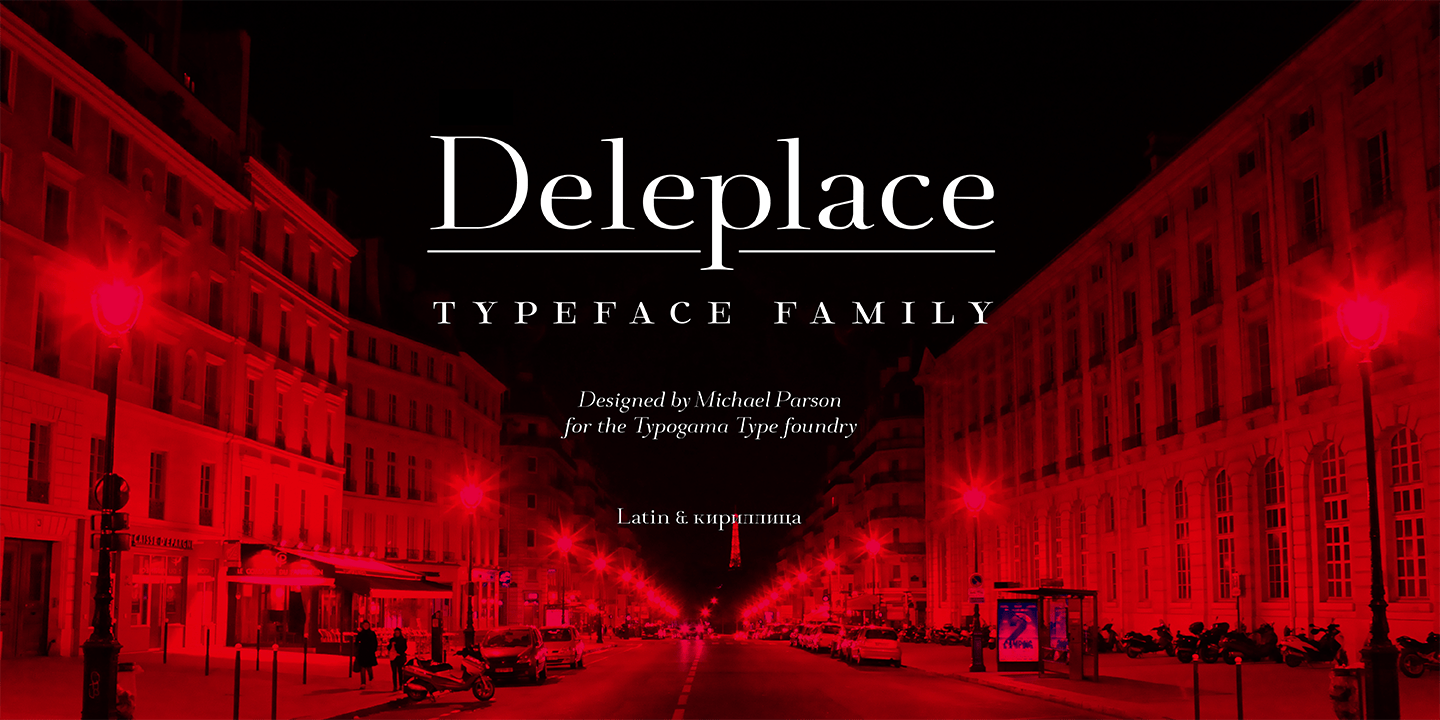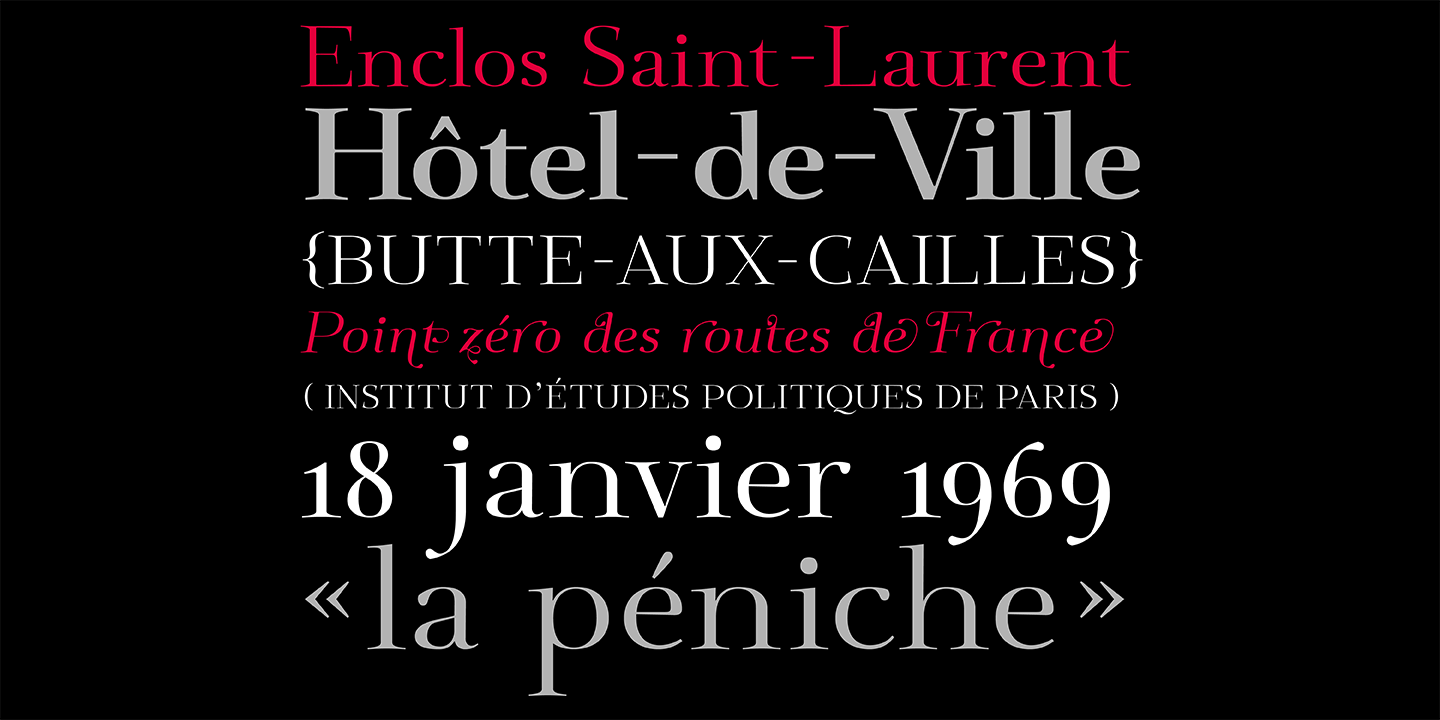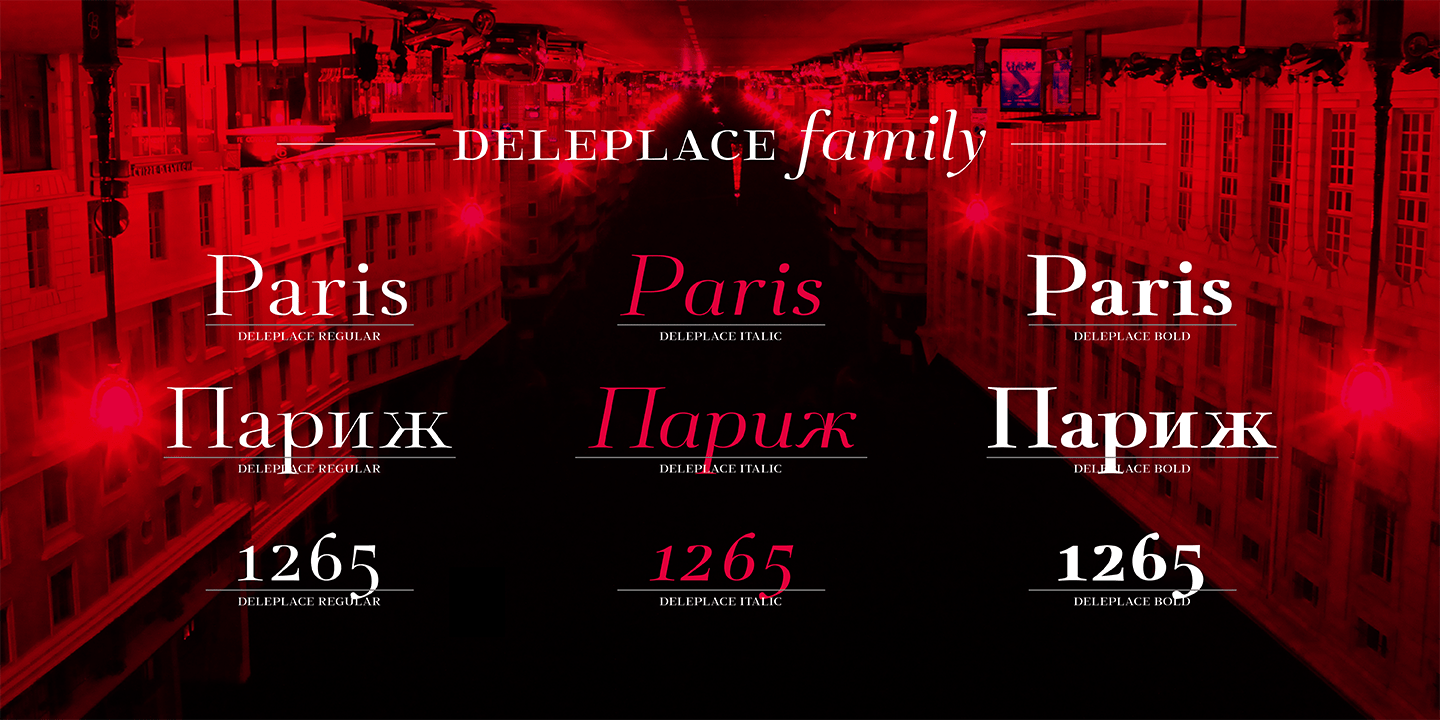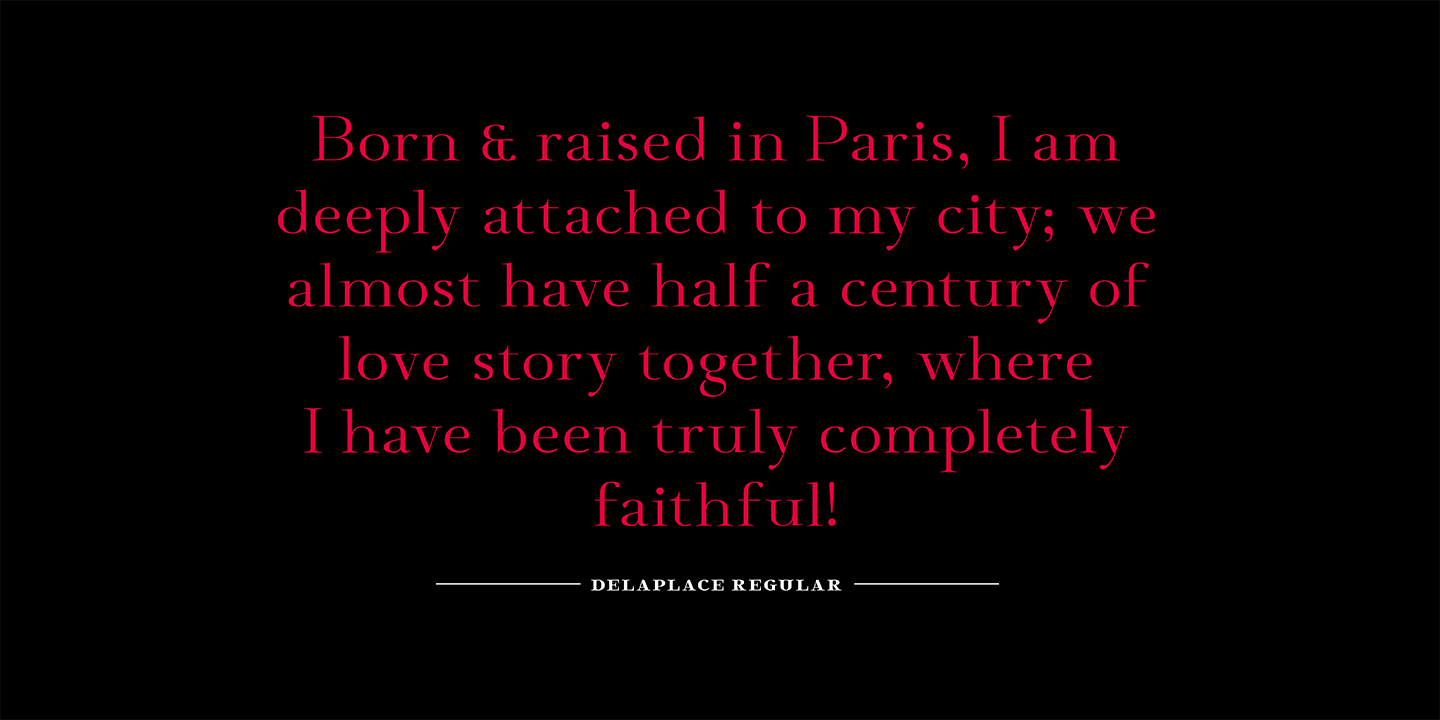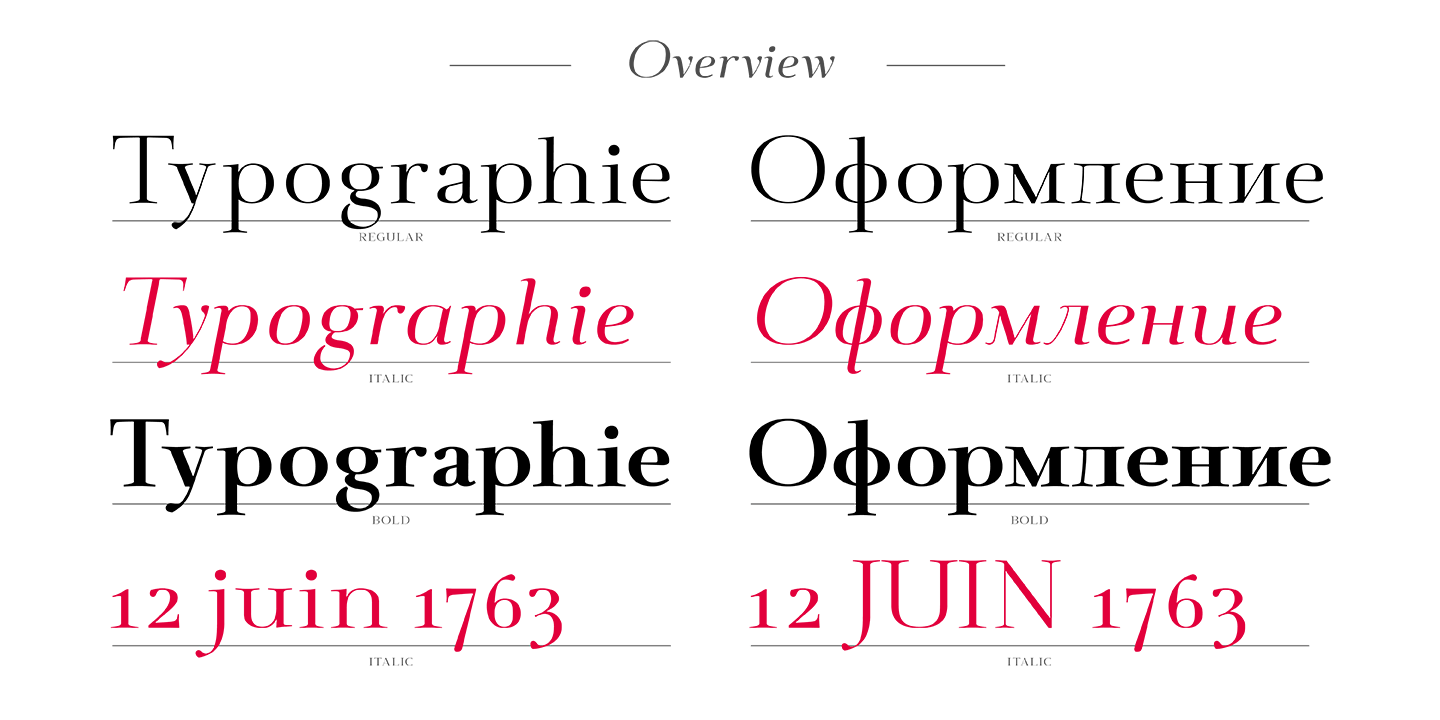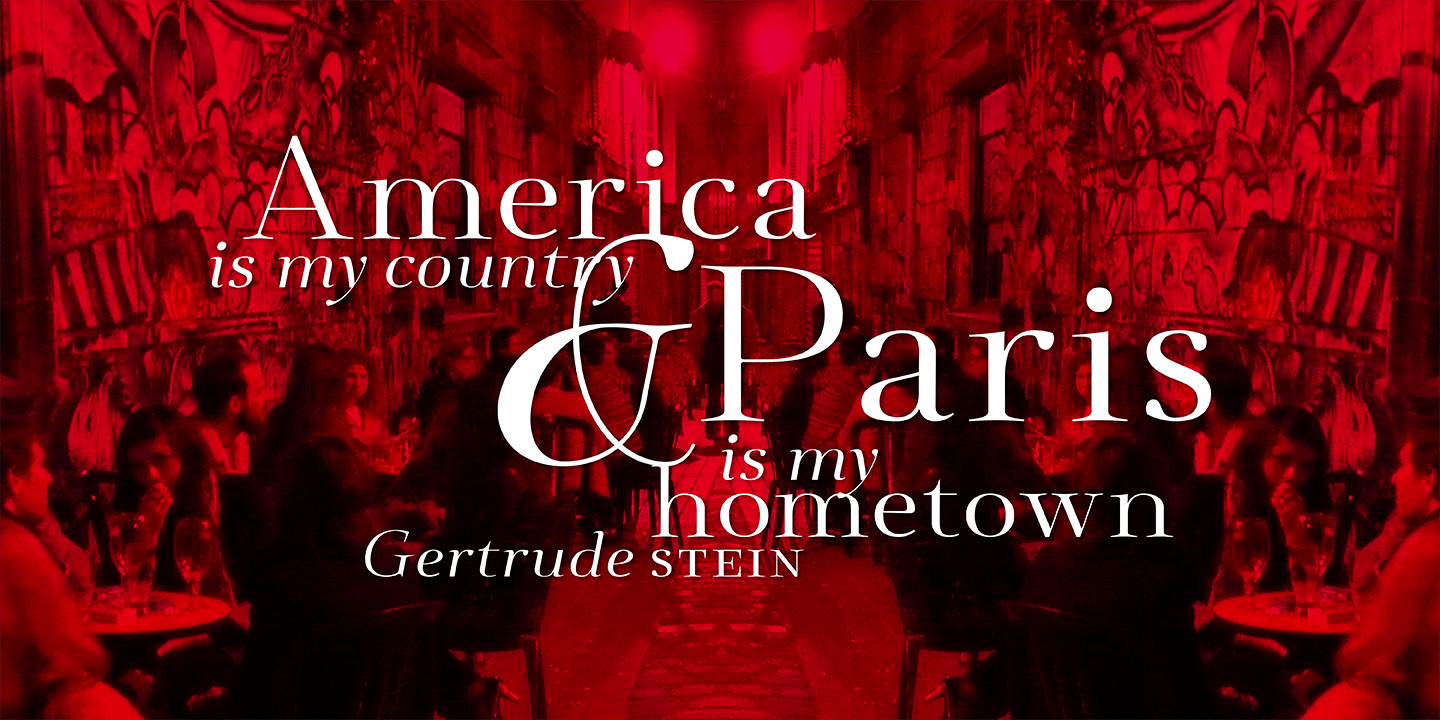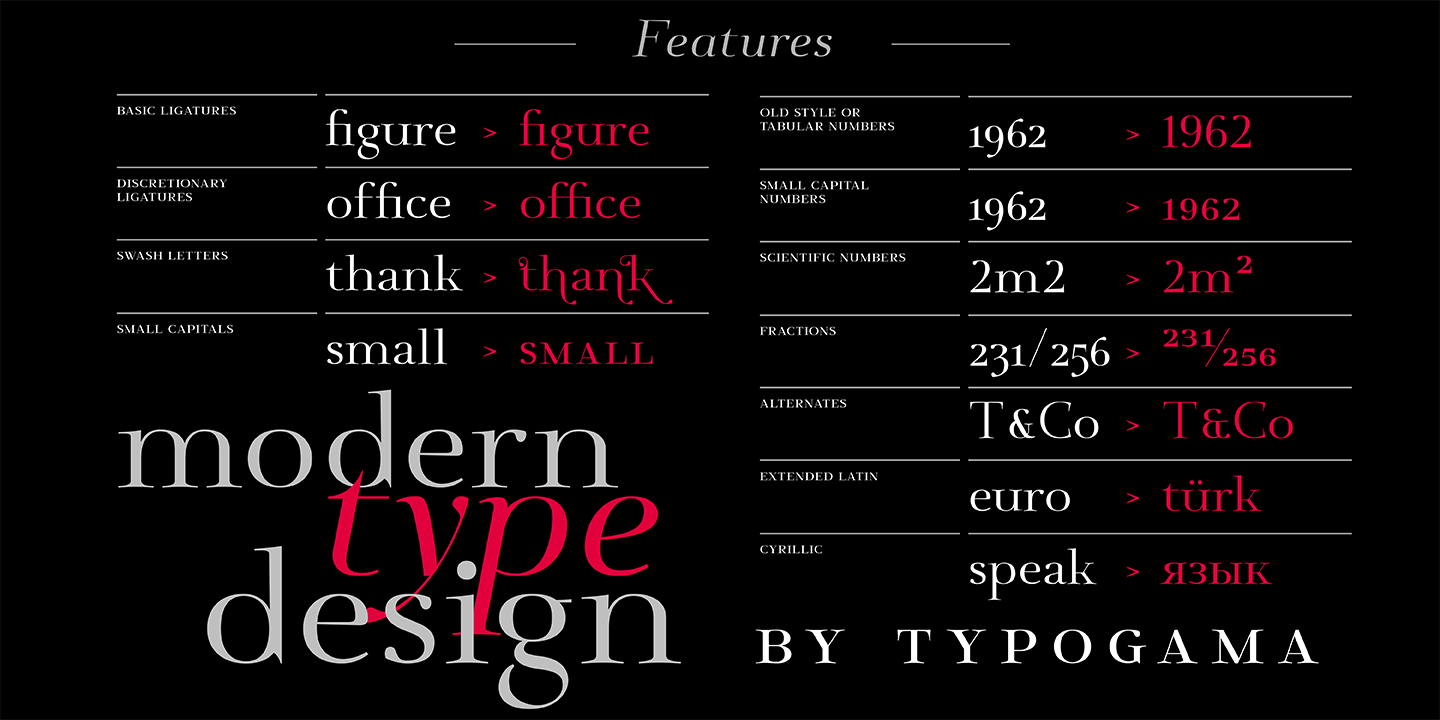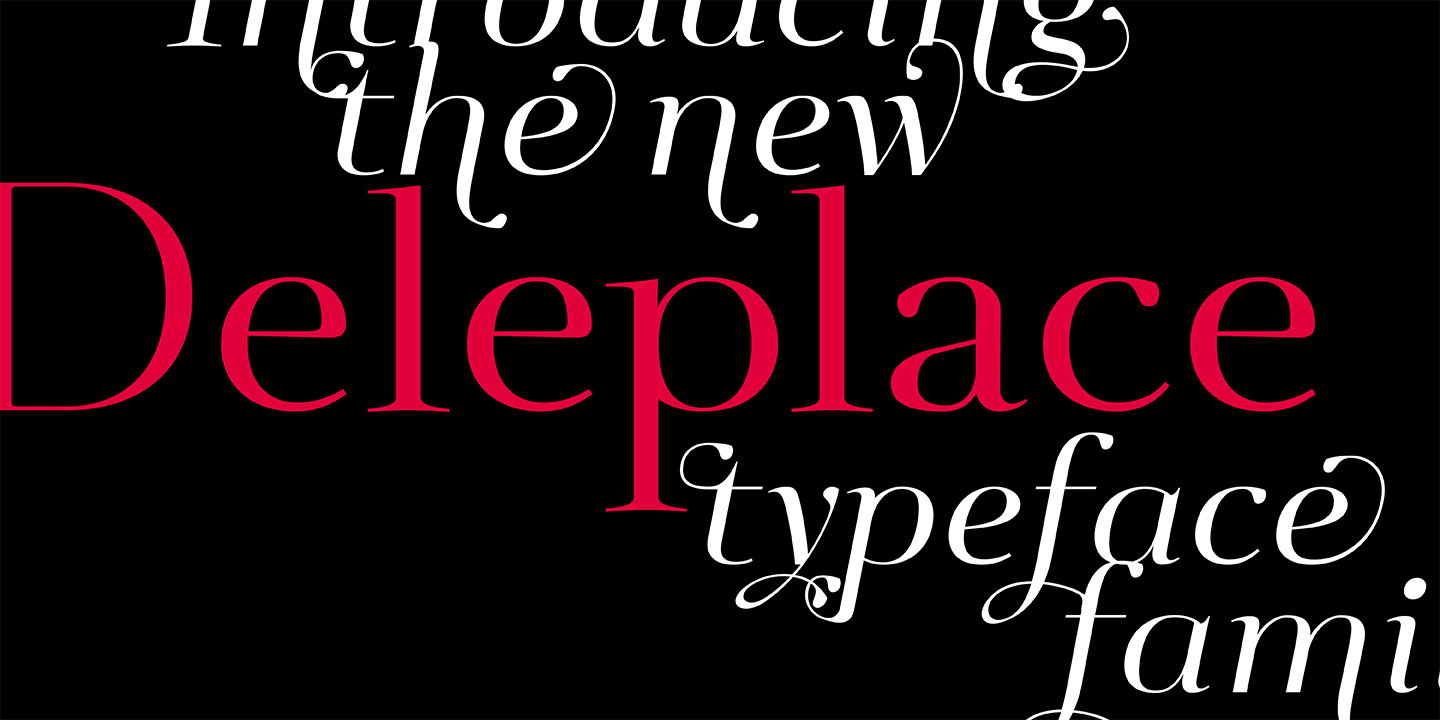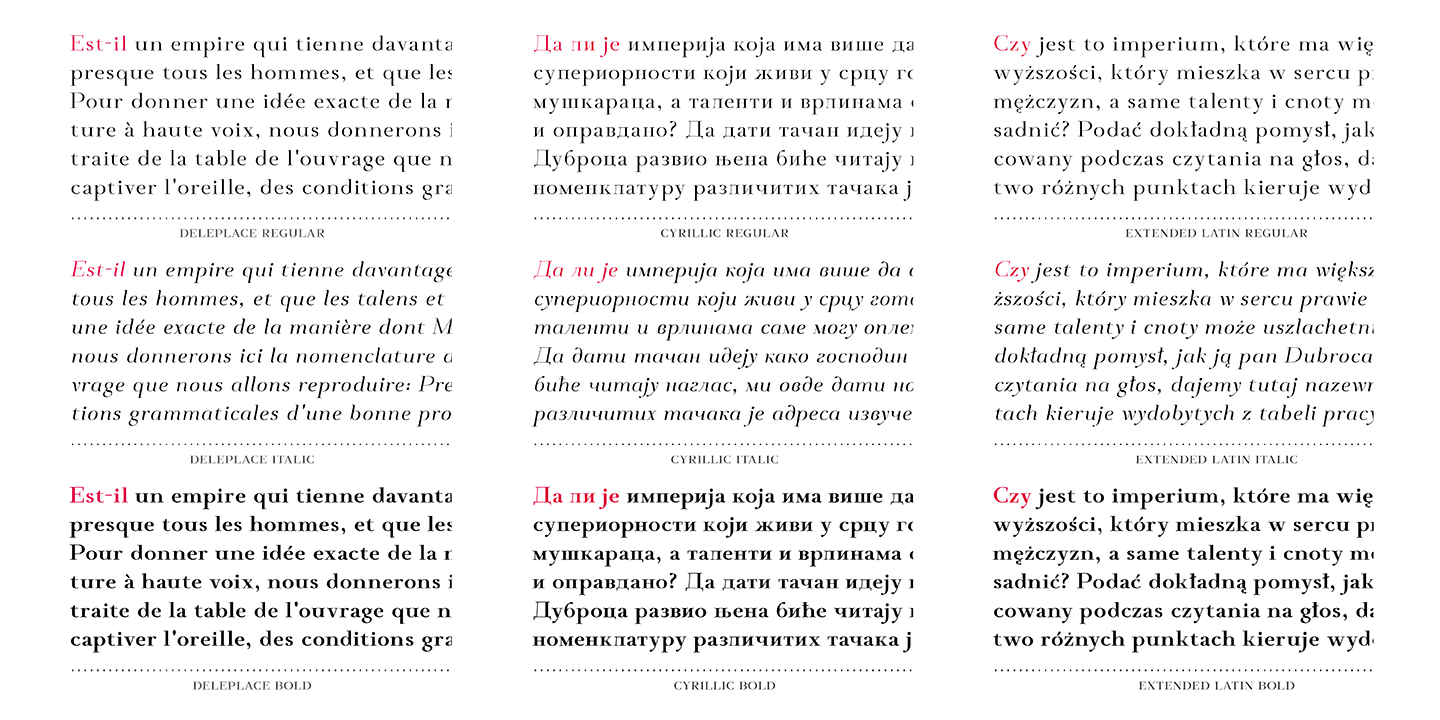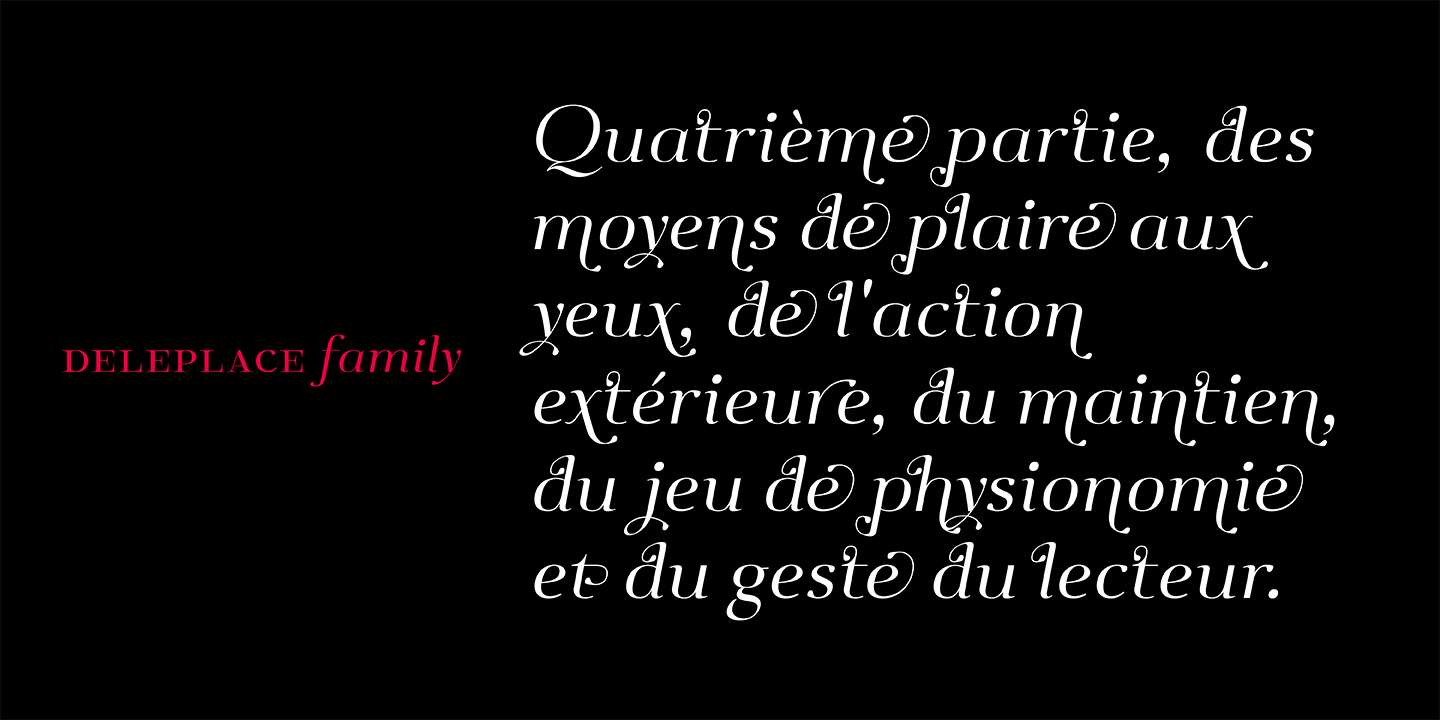
Deleplace
Font Family by Typogama
Deleplace is a modern, delicate and refined typeface that is both contemporary and hints at a classical past. Featured in 3 weights, this family includes an extended language support that covers extended latin and cyrillic scripts. It equally includes a series of Opentype features, from ligatures, alternates, different number options and swash letters. Suited for bot text and large display, this versatile family will be a refined addition to your catalogue.